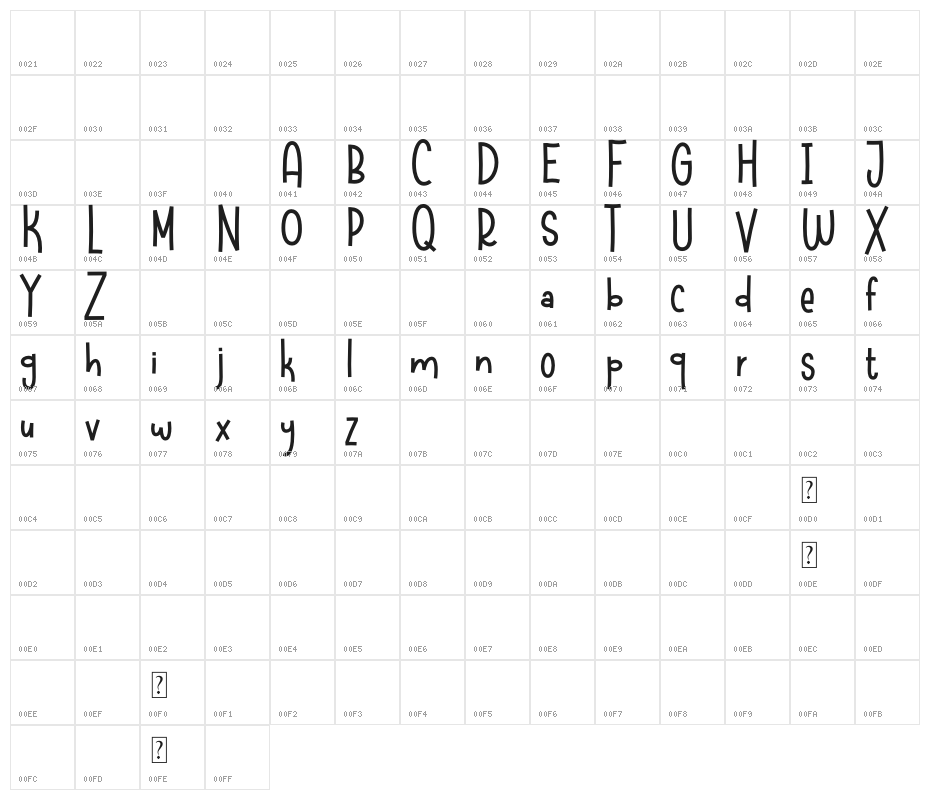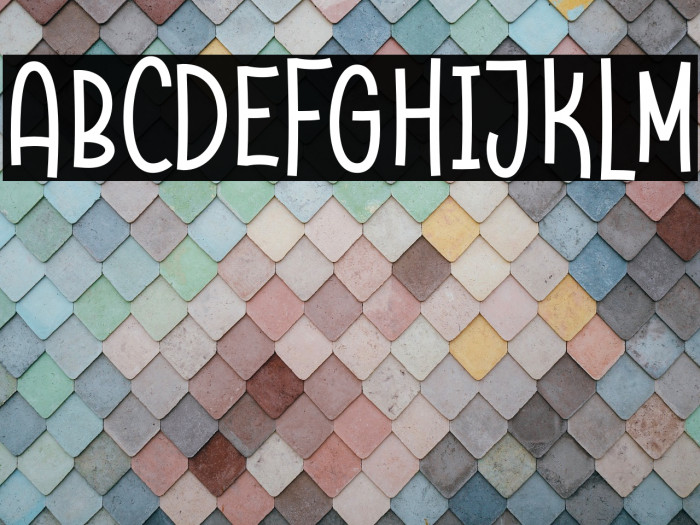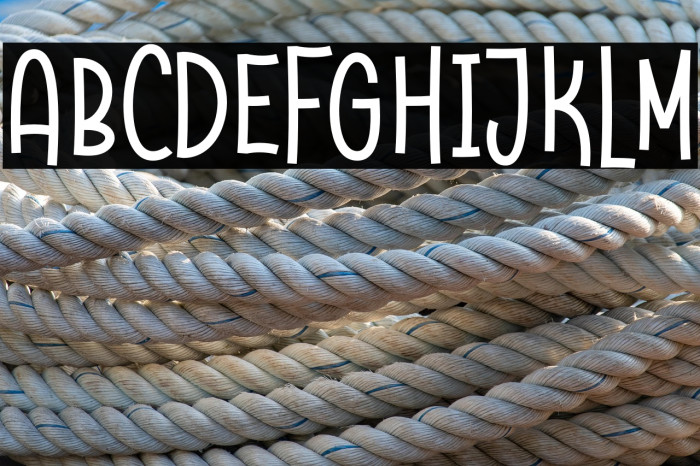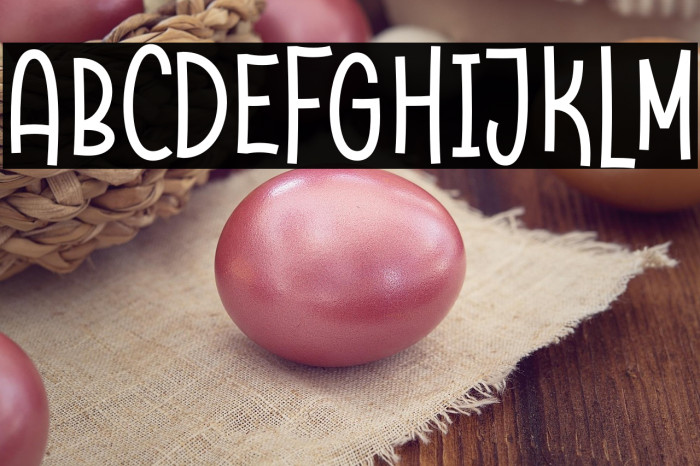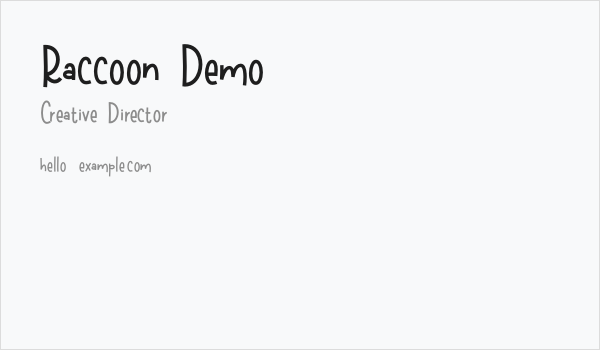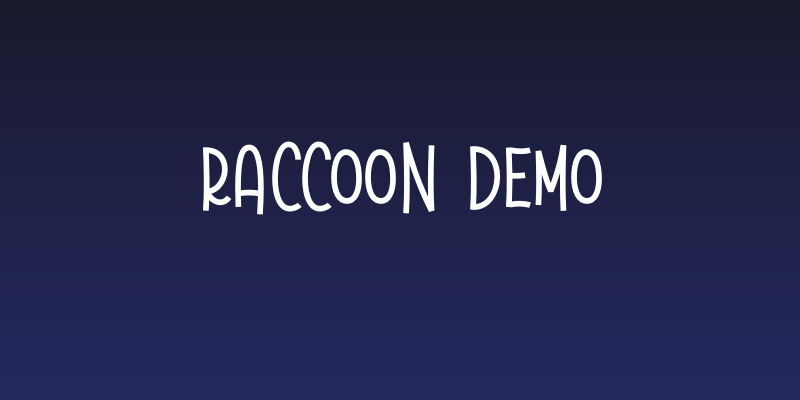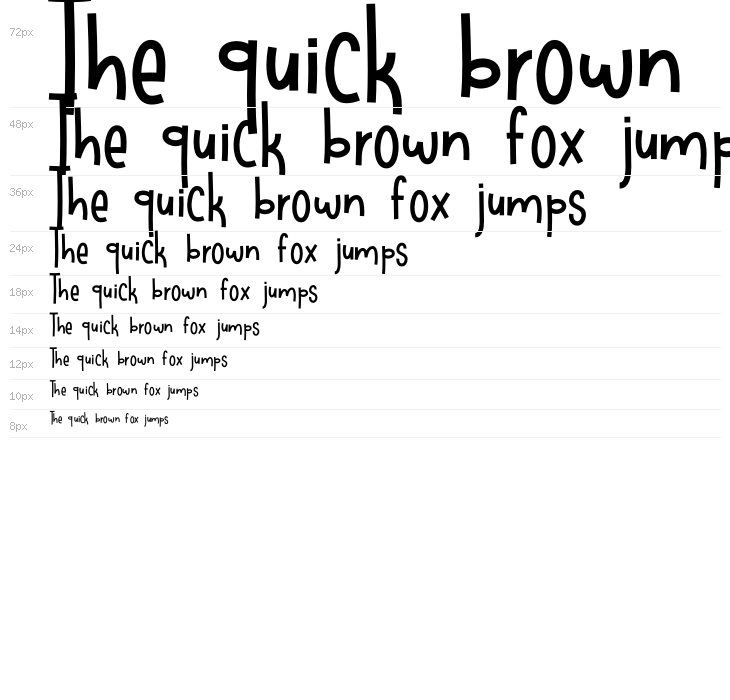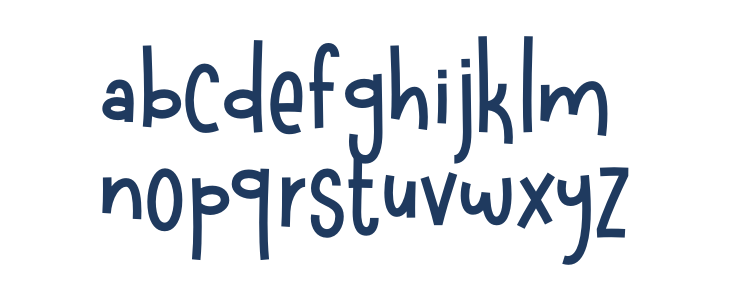
Raccoon Demo Font
Raccoon Demo Description
This playful and whimsical font features a hand-drawn style with irregular, slightly wavy lines that give it a casual and friendly appearance. The characters are tall and narrow, with a mix of rounded and angular elements, creating a unique and approachable look. The uppercase letters maintain a consistent height, while the lowercase letters vary slightly, adding to the informal charm. The numbers and special characters follow the same playful design, making this font suitable for creative and informal projects.
| Use Case | Headlines, Logos, Informal text |
| Proposed Projects | Ideal for children's books, greeting cards, playful branding, and creative social media graphics. |